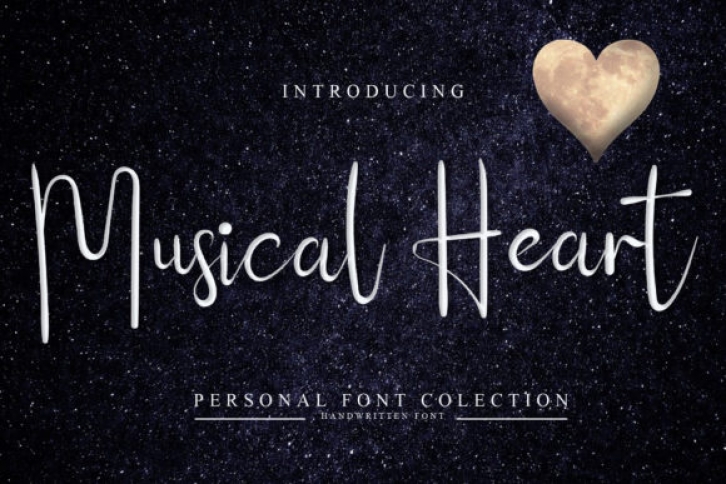
Musical Heart is a unique and elegant handwritten font. It looks beautiful on a variety of designs requiring a personalized style, such as wedding invitations, thank you cards, weddings, greeting cards, logos and so on.